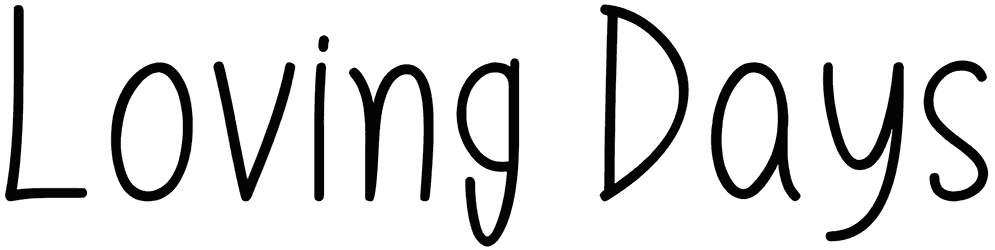
Loving Days Font
Your audiences will easily be impressed if you use a minimal and realistic letterform, which this handwritten font offers. The Loving Days font has the potential to give a casual and sweet face to your words and make them engaging. This cute font doesn’t have numerals, but can still be a nice choice for a daily Instagram post, a bakery sign, or so forth.